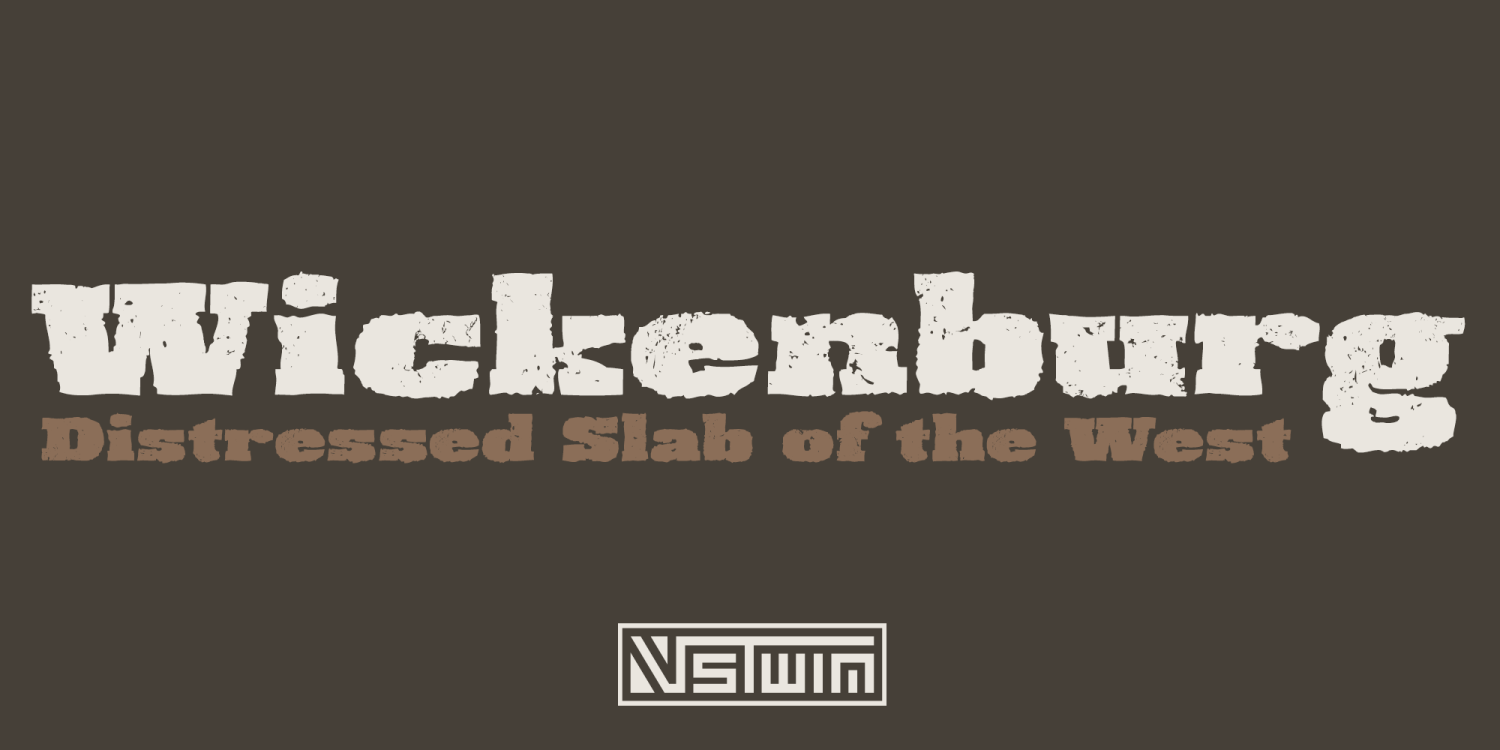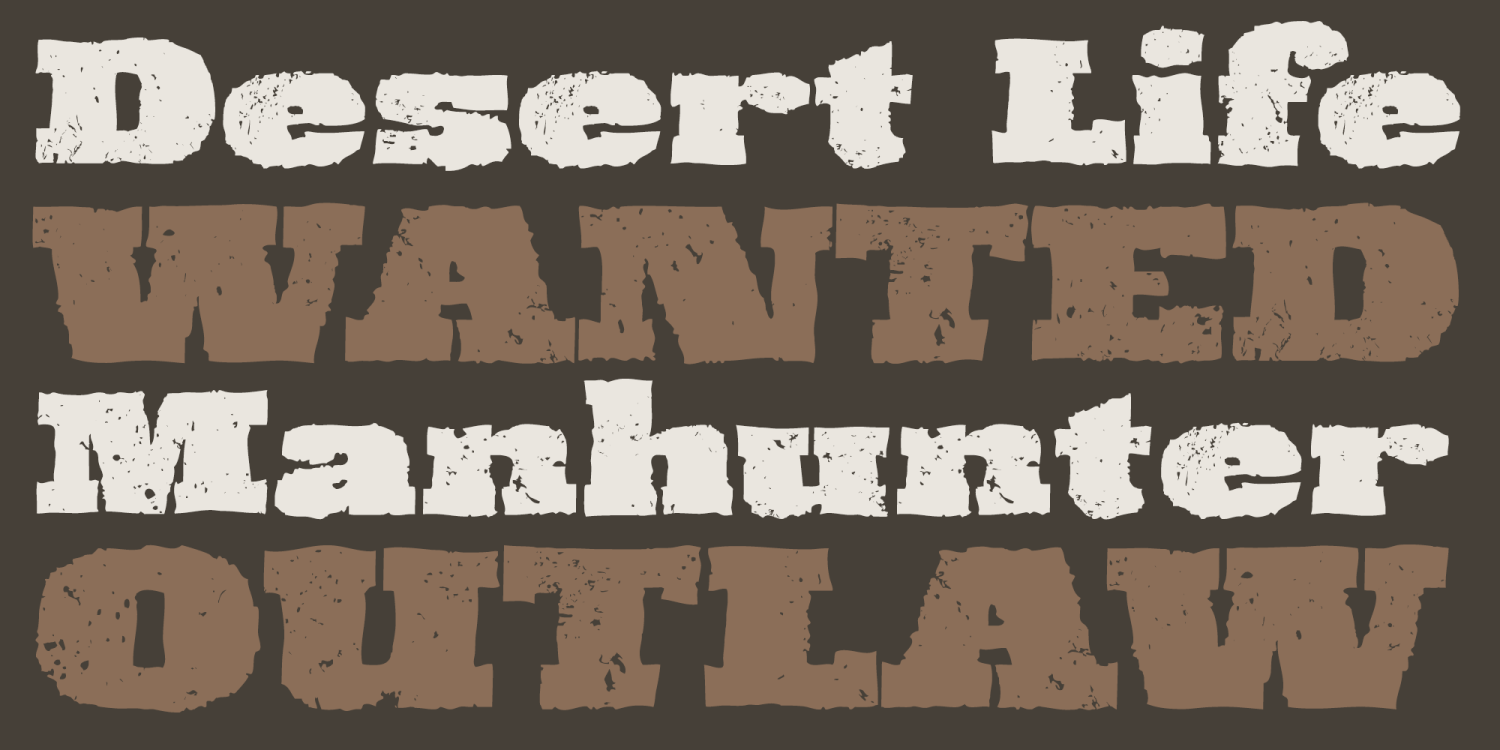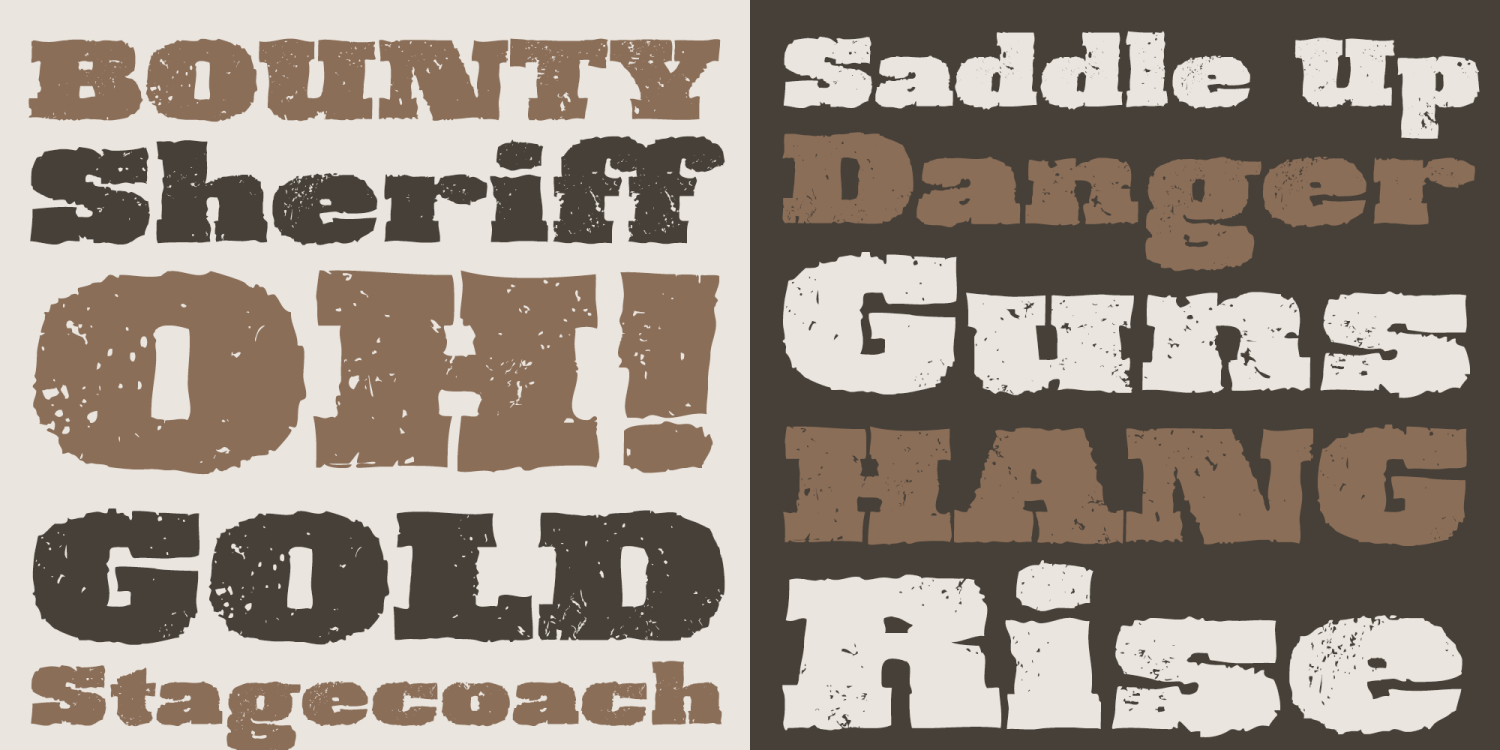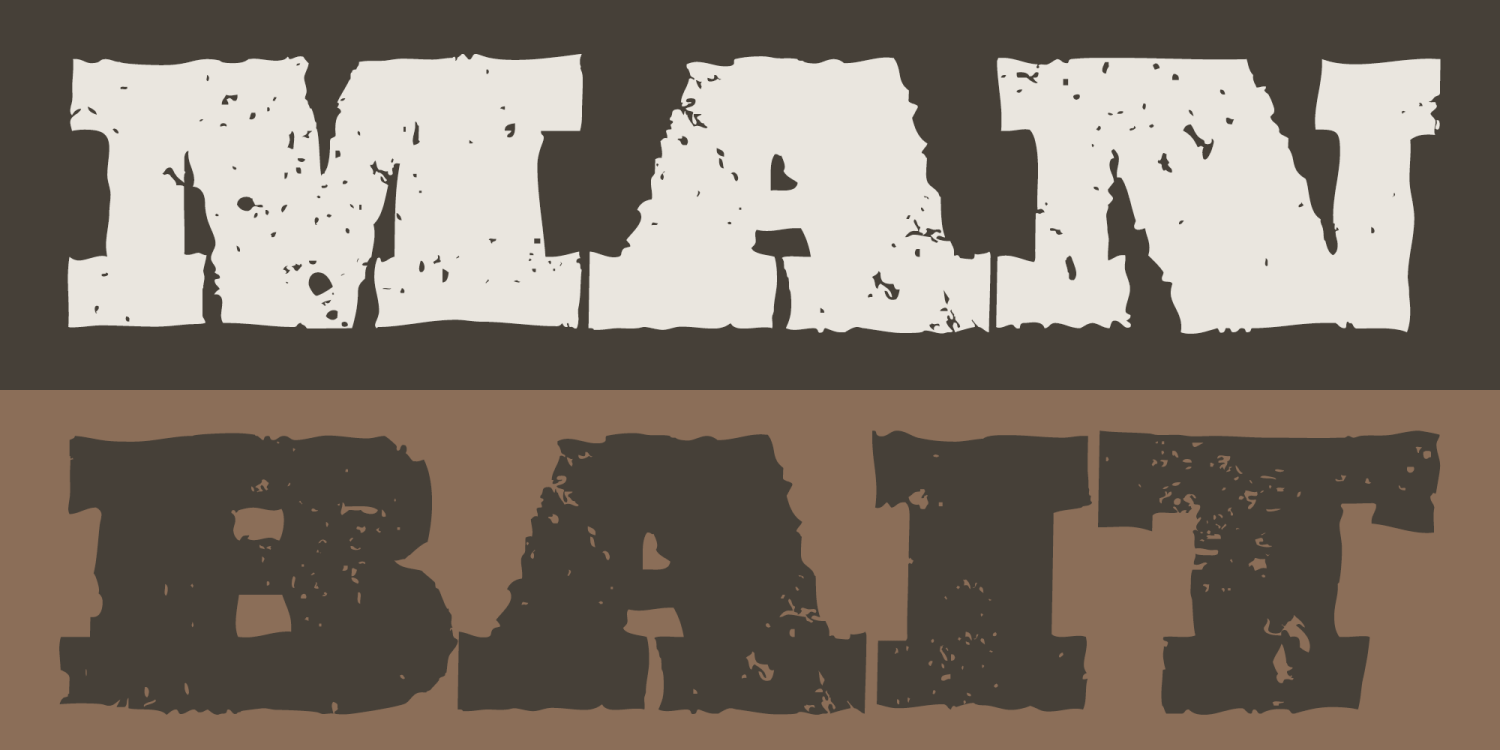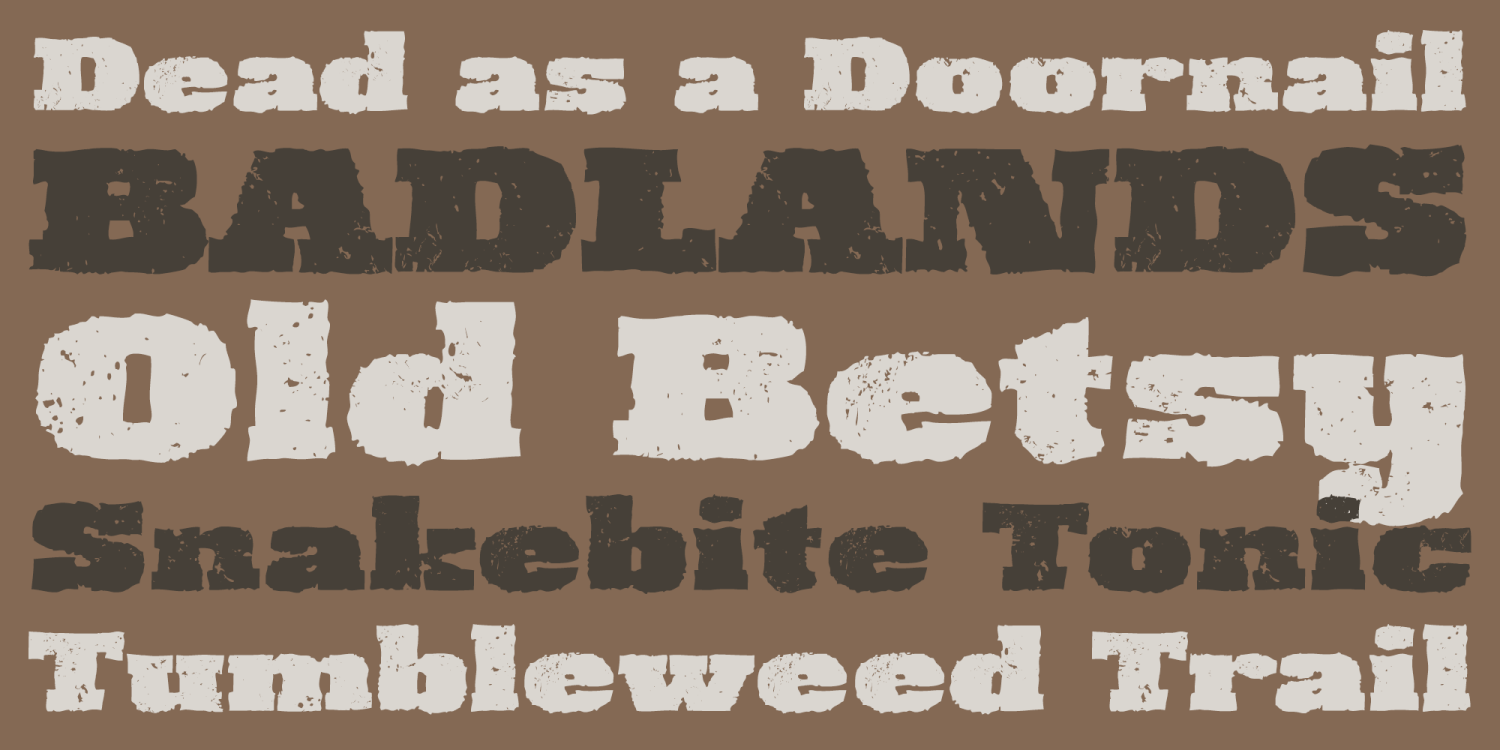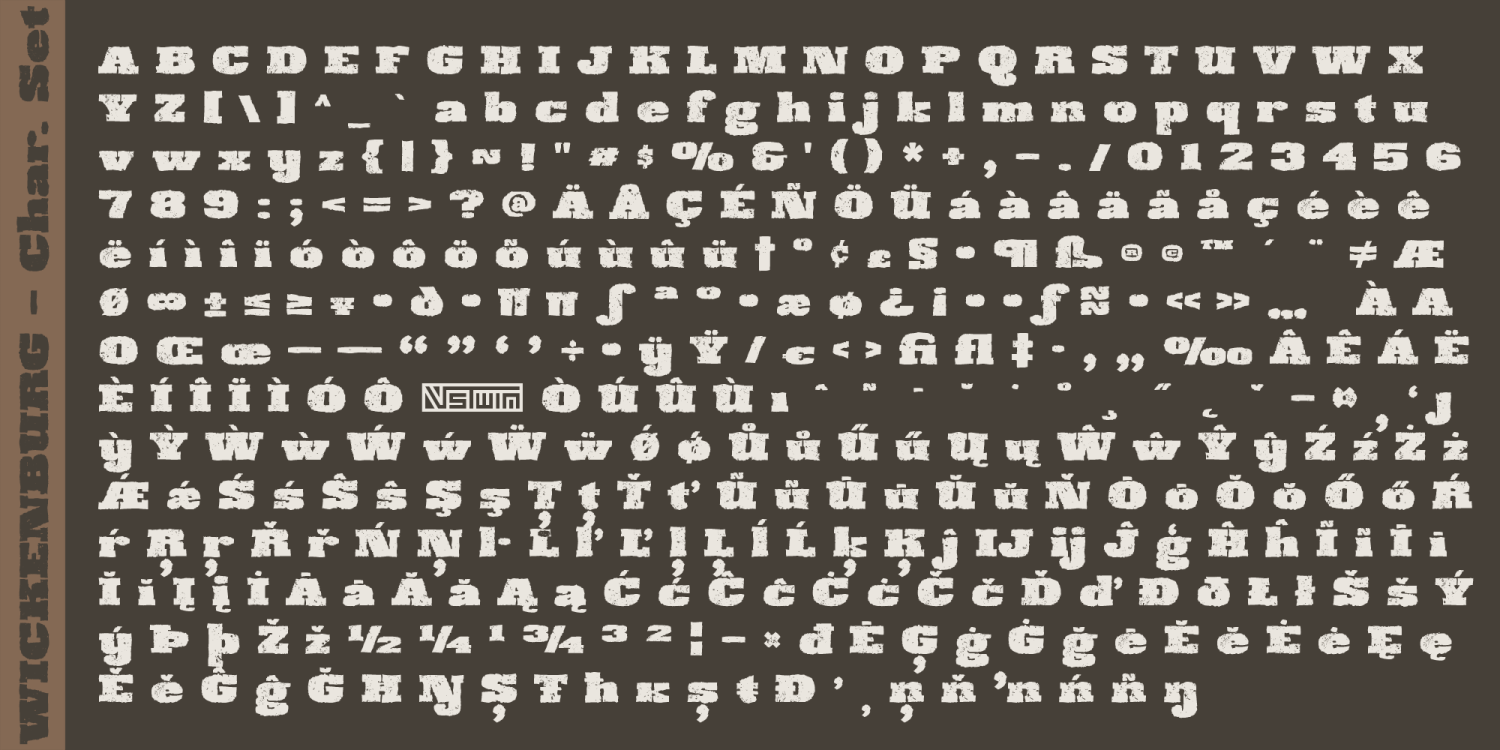
Wickenburg
Font Family by VersusTwin
Wickenburg is a distressed slab serif display face with a bold, rugged presence and a weathered vintage character. Its heavyweight structure gives it strong visual authority, while the roughened details add texture, grit, and a sense of hard use that makes it especially effective in rustic, industrial, and worn Americana-inspired design. Wickenburg is well suited for posters, packaging, signage, branding, apparel, editorial headlines, labels, and promotional graphics that need a serif voice with toughness, age, and unmistakable display impact. It works especially well when a project calls for bold typography with a distressed edge rather than a polished or conventional finish.